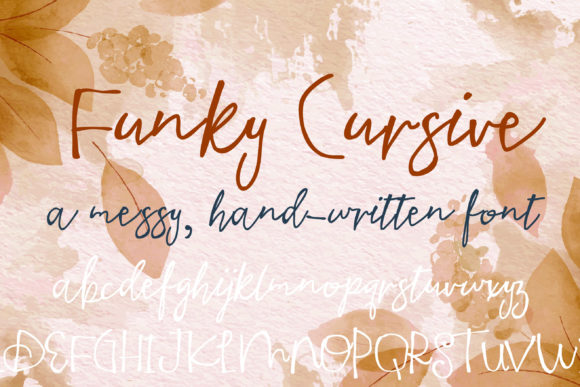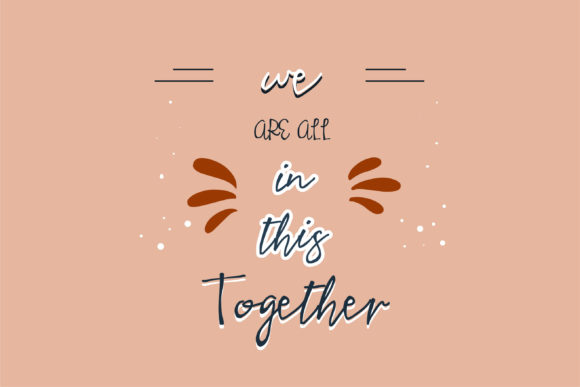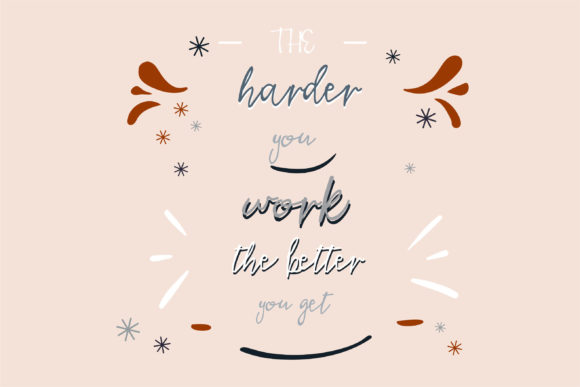
Funky Cursive Font
About the Funky Cursive Font
From logos to headlines, the Funky Cursive Font is the perfect choice for making a lasting impression. Funky Cursive is a stylish and incredibly elegant script font. It looks stunning on wedding invitations, thank you cards, quotes, greeting cards, logos, business cards, and every other design which needs a handwritten touch.
Its elegant, yet playful nature makes it ideal for branding projects needing a touch of personality, particularly those related to fashion, beauty, or the arts. It excels in headlines, short quotes, and logos, adding a sophisticated handwritten feel. However, its cursive style and varying stroke weights make it unsuitable for body text or UI elements requiring high readability.
For optimal visual harmony, pair Funky Cursive with a clean sans-serif like Montserrat for a modern contrast, or a classic serif such as Garamond for a more timeless feel. A geometric sans-serif such as Futura could also create a striking juxtaposition, depending on the desired aesthetic.
Funky Cursive possesses a bold yet friendly personality, lending itself well to projects that require a balance between sophistication and approachability. Avoid using it in contexts demanding high legibility across large amounts of text.
Funky Cursive Font Usage Examples
Funky Cursive Font Example